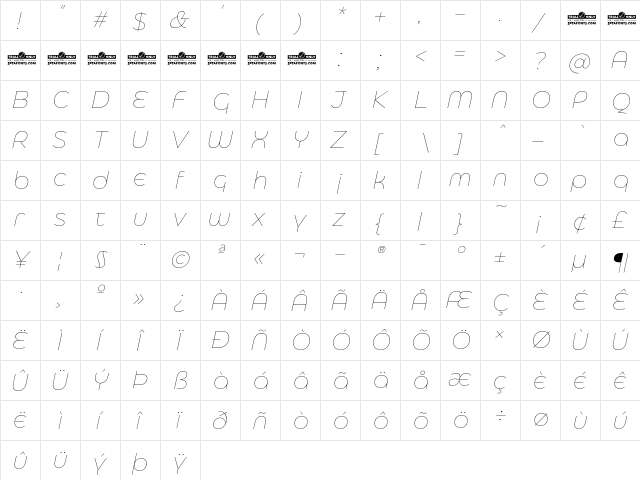
Eastman Alternate Trial Thin Italic Font Preview
| Foundry | Zetafonts |
| Designer | Francesco Canovaro |
Design Context for Eastman Alternate Trial Typeface
Eastman Alternate Trial takes a measured approach to typography — its balanced proportions and neutral character make it a reliable workhorse for both digital and print work. The dynamic lean of this cut emphasises speed and emphasis in any layout. The delicate stroke weight brings airiness and refinement to layouts.
Pro Tip: Try Eastman Alternate Trial for annotation and caption copy alongside an upright companion — the contrast in angle creates a dynamic but ordered typographic system.